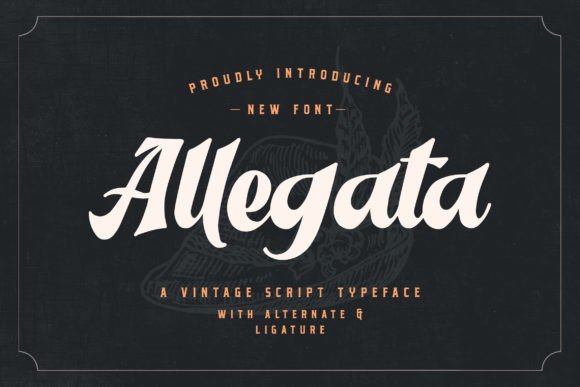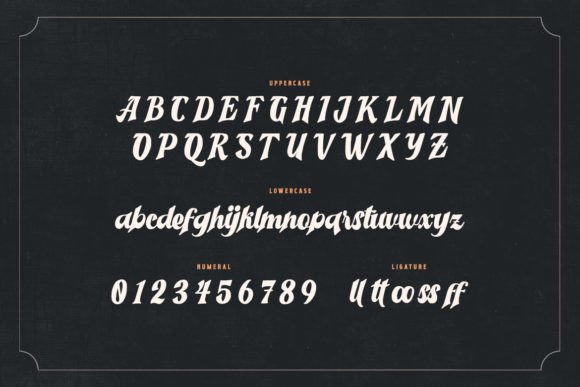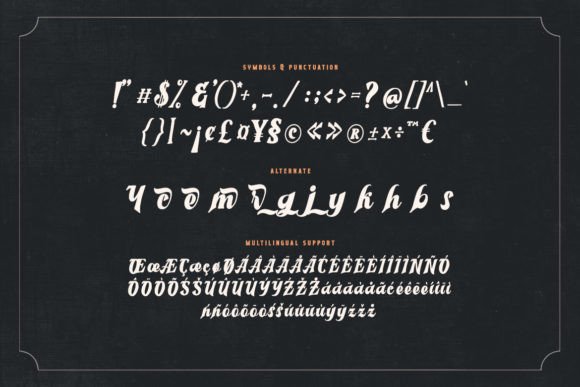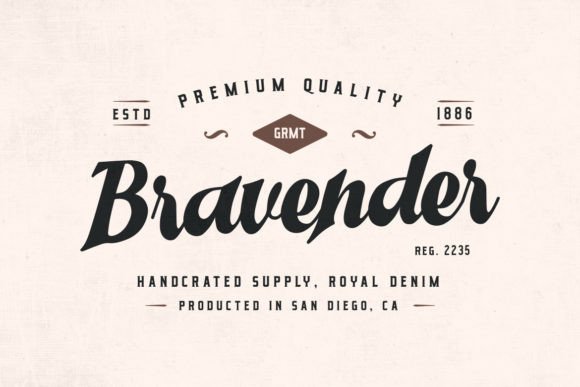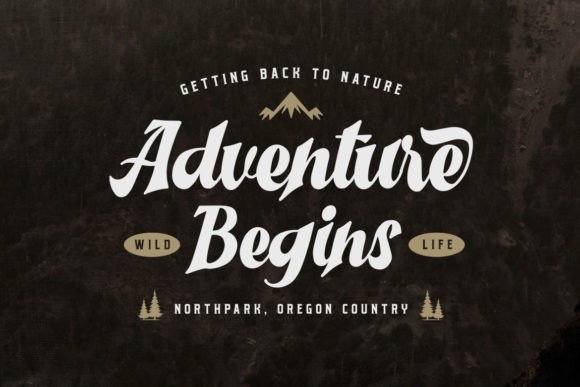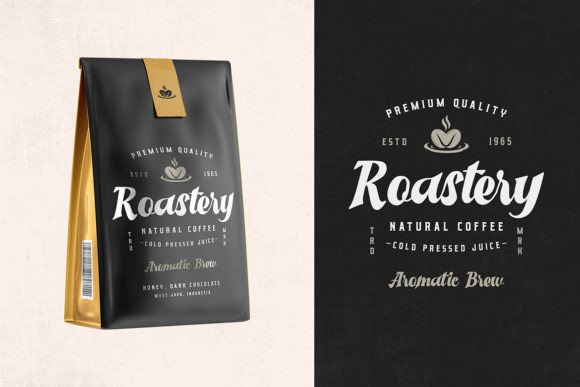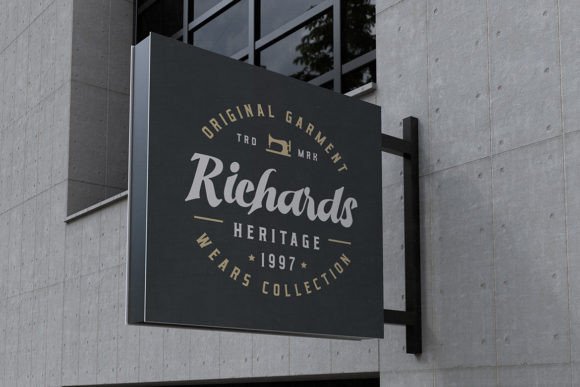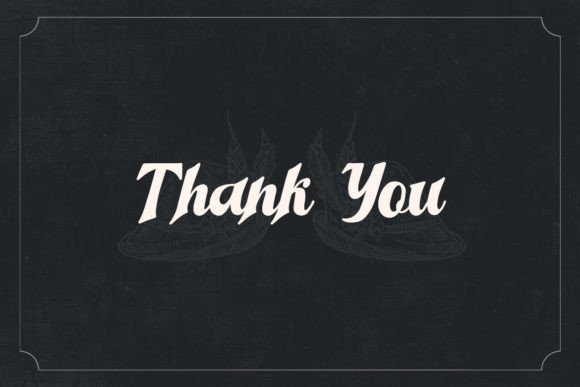
Allegata Font
“Allegata emerges as a distinctive vintage script font, inviting you to fall in love with its remarkably versatile style. This font is a unique blend of nostalgia and modernity, making it the perfect choice for a myriad of creative applications. Let Allegata be your creative companion as you delve into designing wedding invitations, establishing restaurant branding, crafting retro stationary art, and curating eye-catching social media posts.
The charm of Allegata lies in its vintage script, each letter carefully crafted to evoke a sense of timeless elegance. Whether you’re envisioning a romantic wedding invitation or breathing new life into a restaurant’s brand, this font effortlessly adapts to the aesthetic demands of your project.
For retro stationary art, Allegata becomes the quintessential choice, adding a touch of nostalgia to your designs. Its unique character and style make every written word a visual delight, turning mundane stationary into pieces of art that captivate and engage.
In the dynamic world of social media, where visual appeal is paramount, Allegata stands out. Craft eye-catching posts, quotes, and promotional materials that leave a lasting impression. The versatility of this font extends to labels, logos, and web design, making it a go-to choice for those seeking a distinctive yet adaptable typographic element.
Imagine Allegata gracing posters, workshops, and various design projects, infusing each with its unique personality. It goes beyond being just a font; Allegata becomes a storyteller, conveying a sense of nostalgia and sophistication that resonates with your audience.
The possibilities with Allegata are limitless. Its vintage script breathes life into your creative concepts, transforming them into visually striking expressions. Let Allegata be the thread that weaves together your ideas, turning each project into a masterpiece. Whether you’re designing for print or digital, Allegata promises to be the versatile and timeless font that elevates your creativity to new heights.”